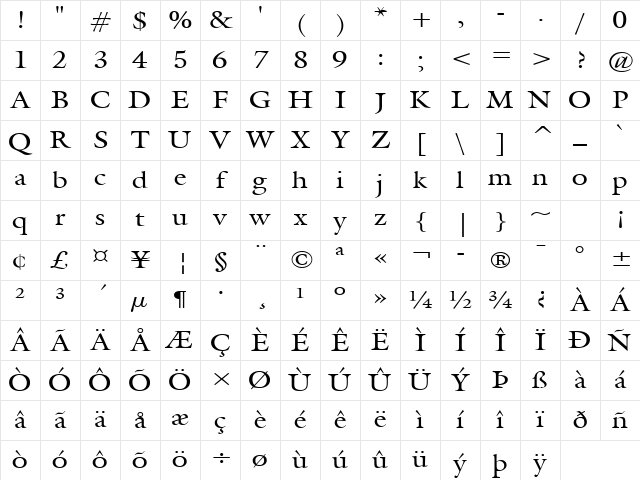
Galant Wide Normal
Galant Wide Family
Complete Galant Wide Normal glyph index. Displaying only characters natively supported by Galant Wide Normal font.
Design Context for Galant Wide
Galant Wide is a composed and adaptable typeface that performs quietly and consistently across a wide range of design contexts.